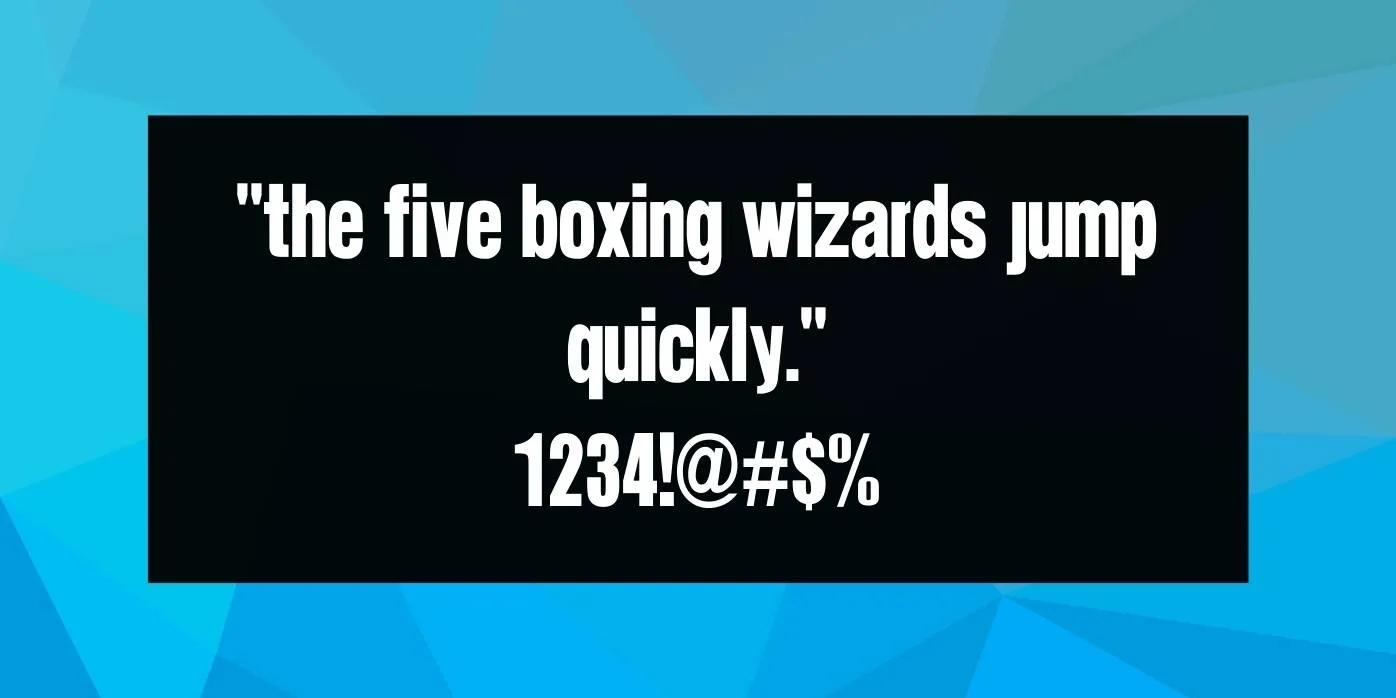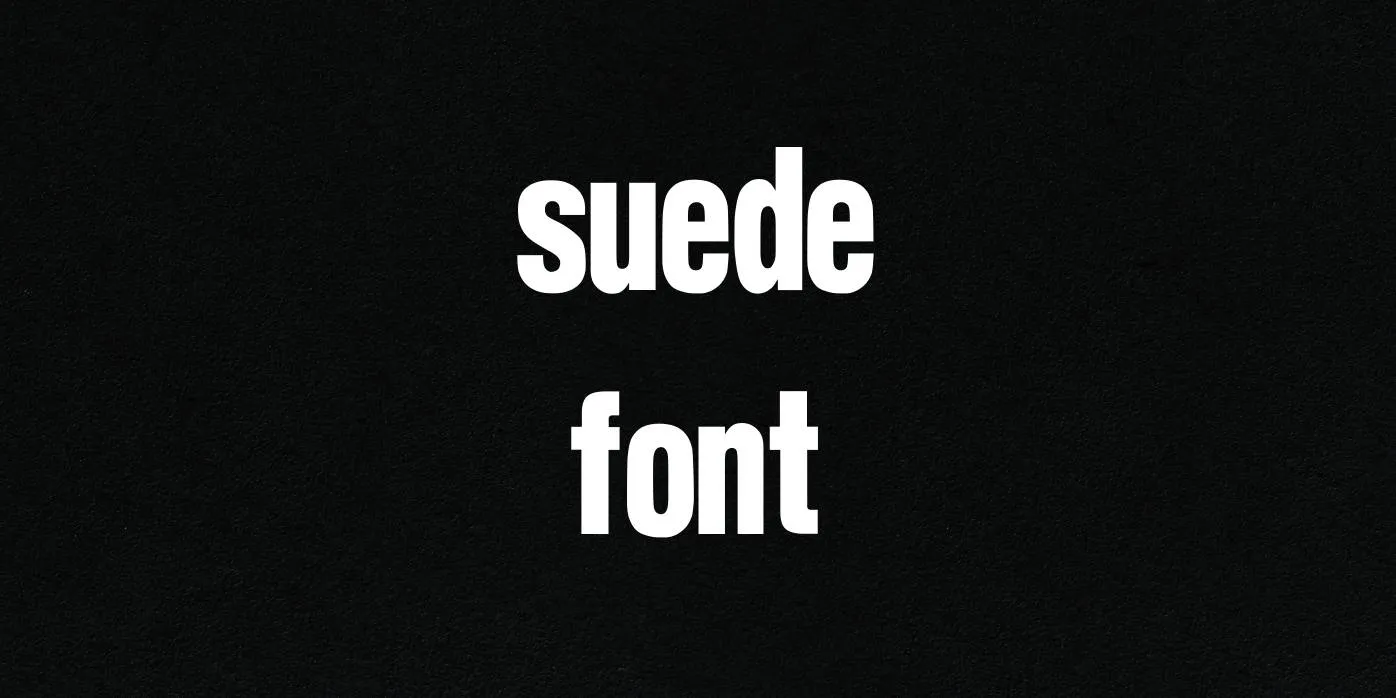
Suede Font
Here we discuss detailed information about Suede font. This font is designed by James a famous font designer. It is a sans-serif typeface. Platforms supported are Microsoft and Unicode BMP only.
It contains 107 characters, 108 glyphs, and 3200 units per Em. The weight of the font is Semi-Bold and the width is condensed. Its Mac style is bold. Embedding rights are allowed for permanent installation.